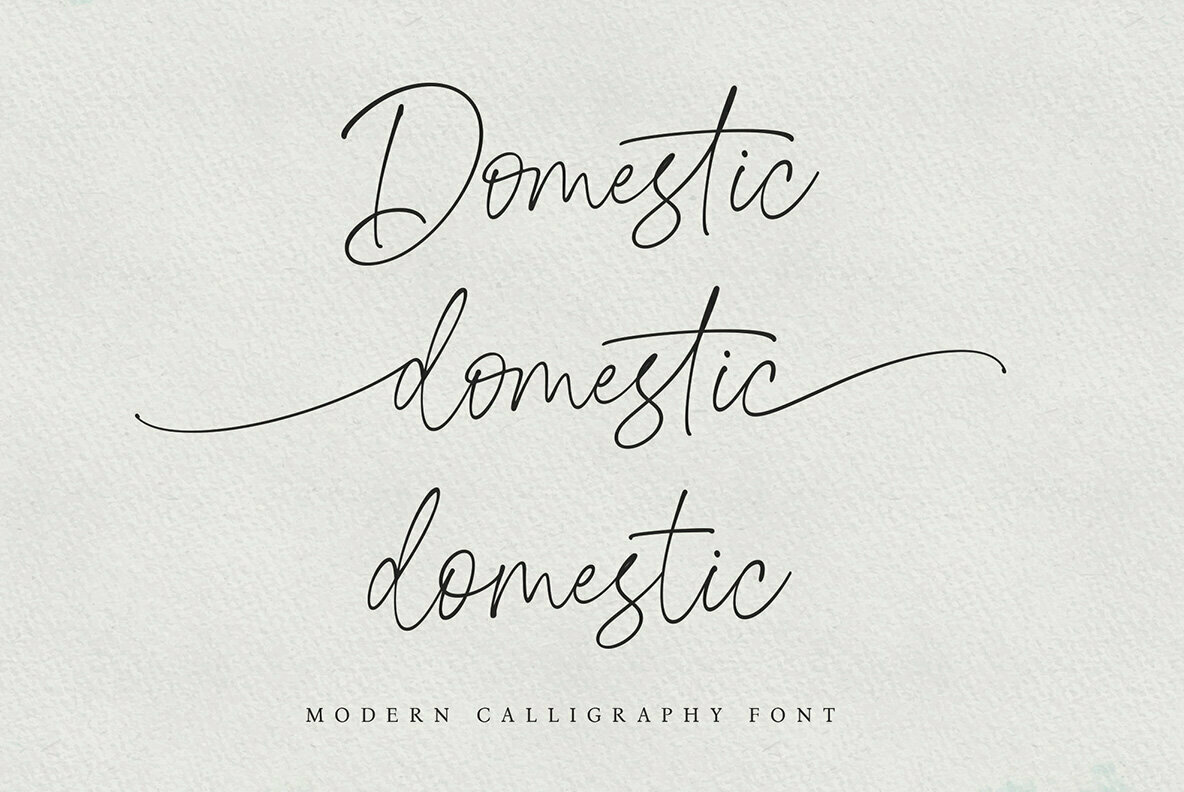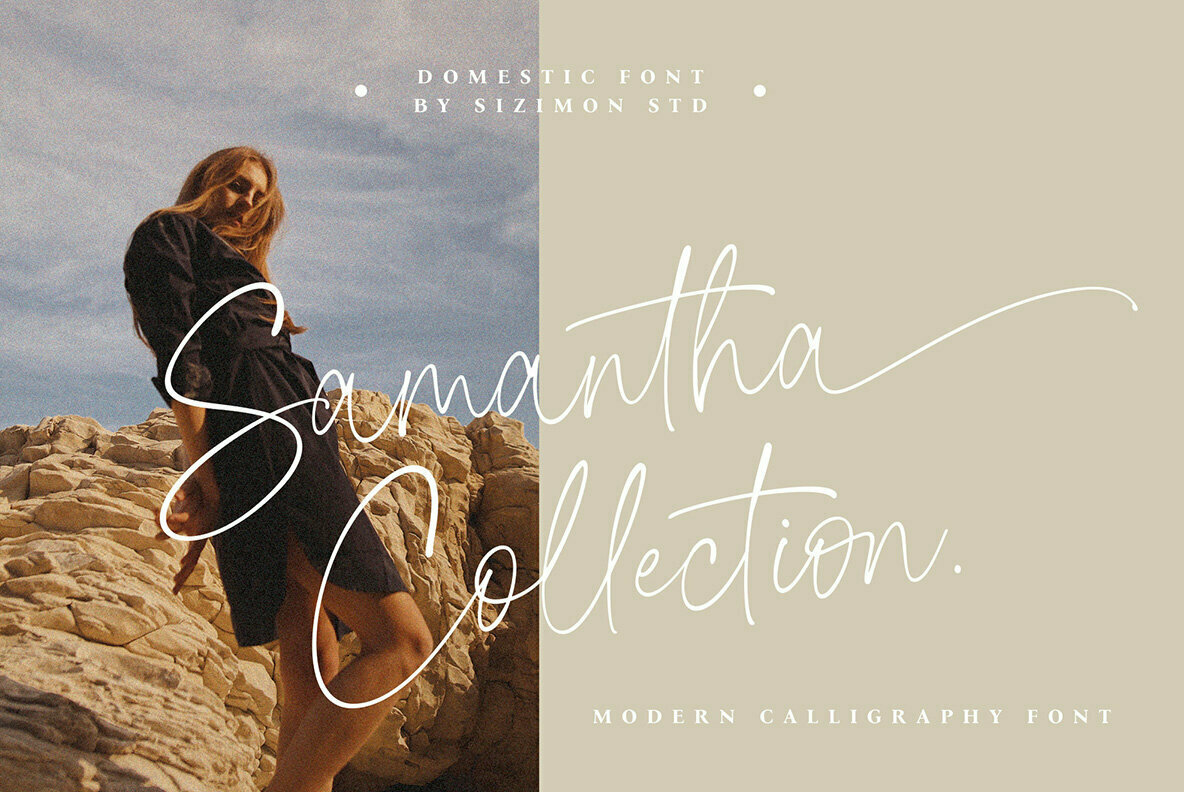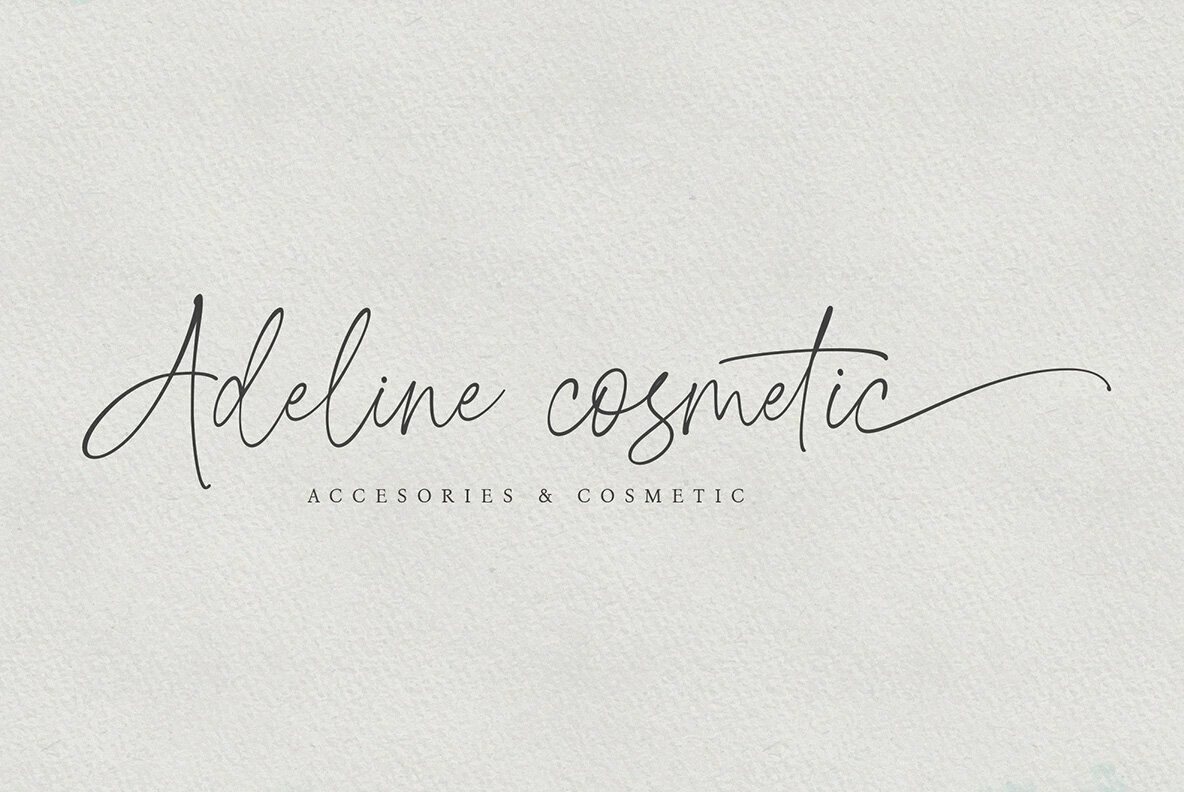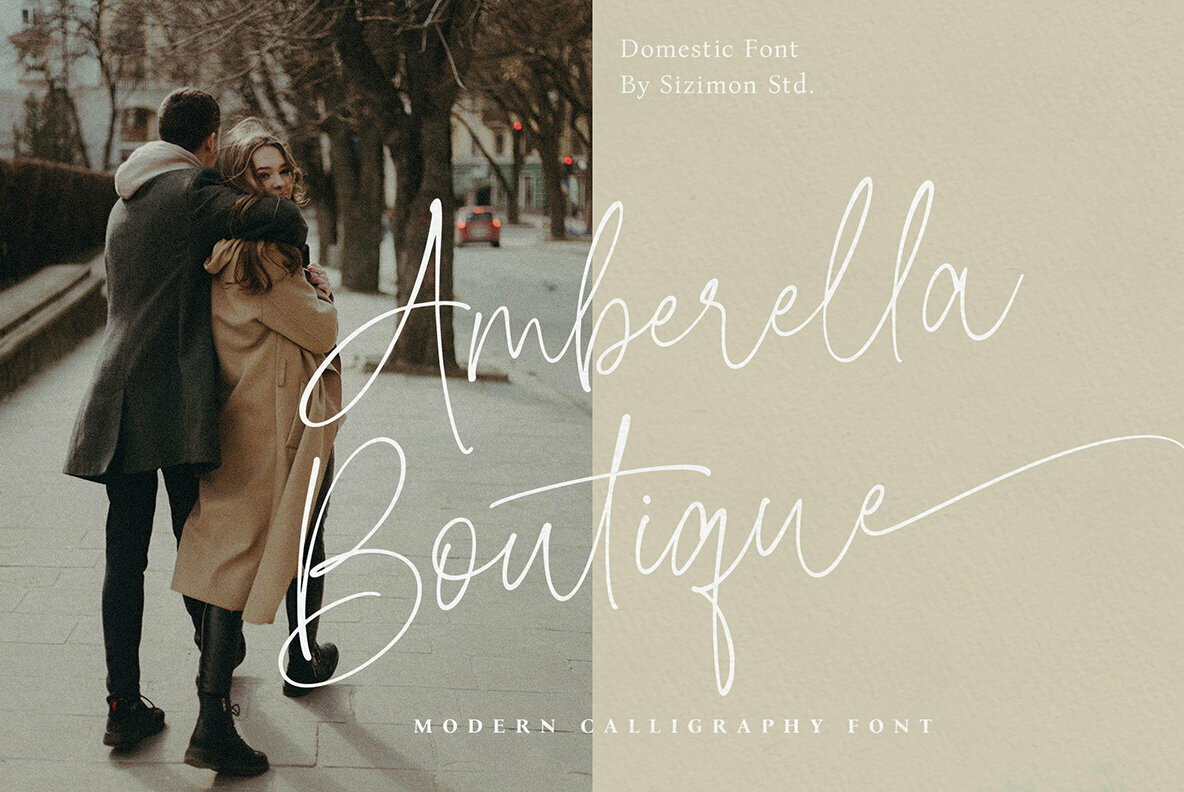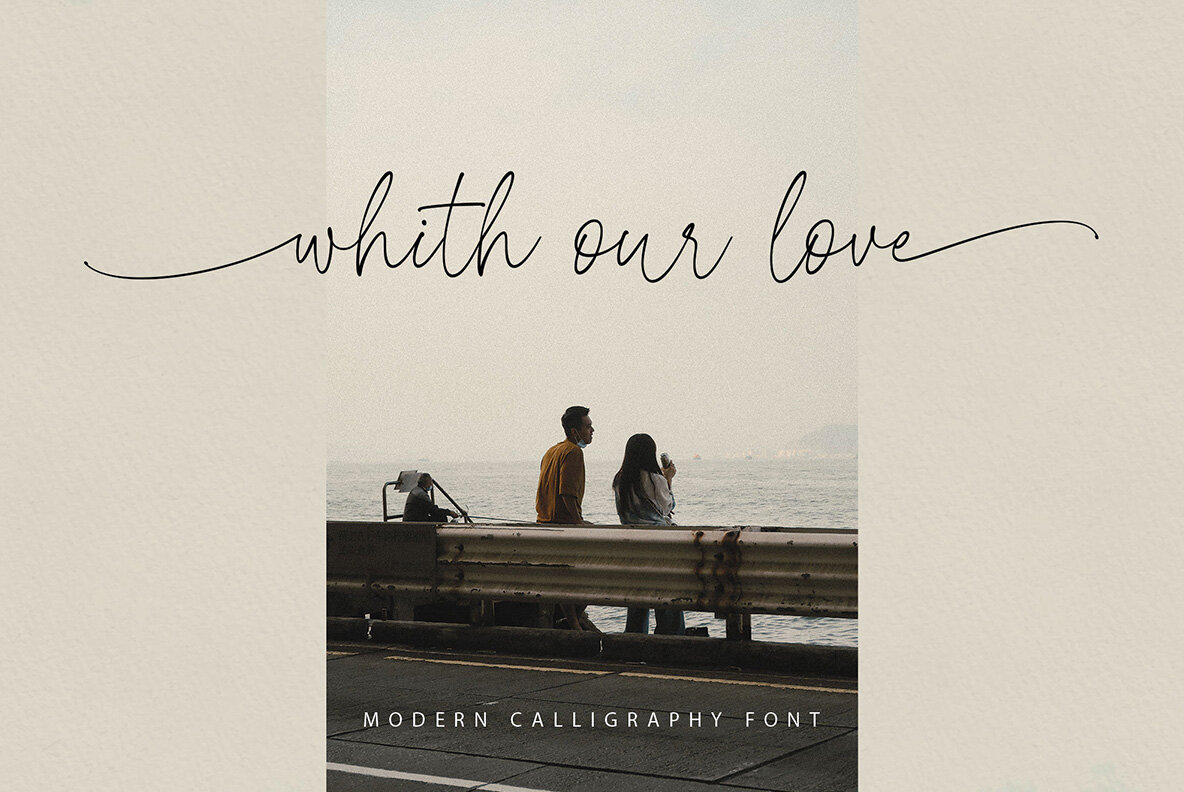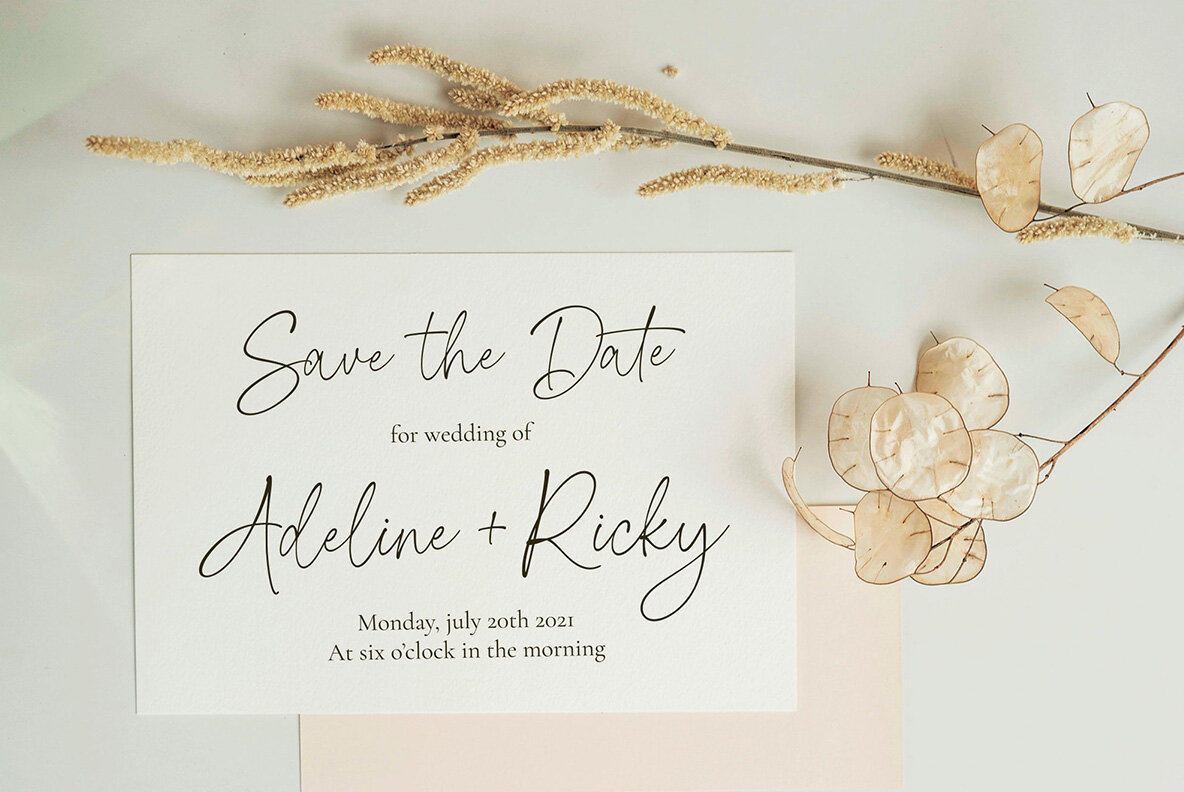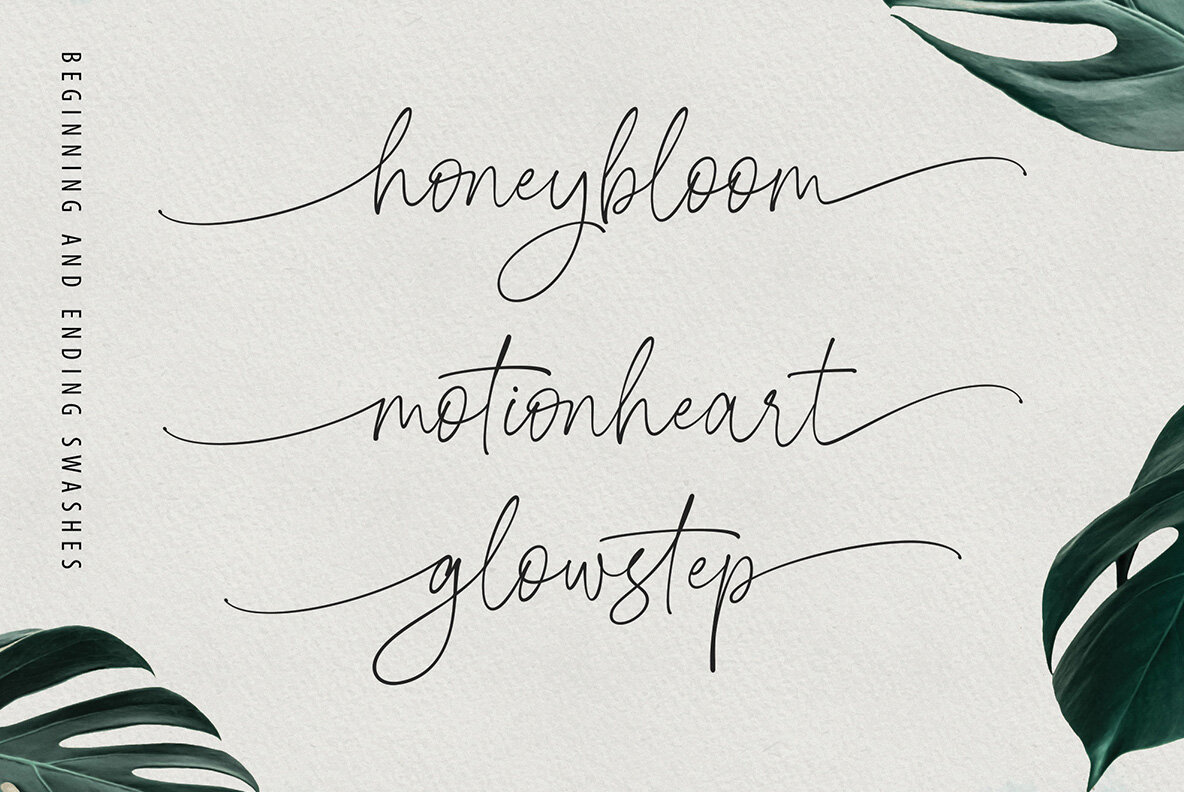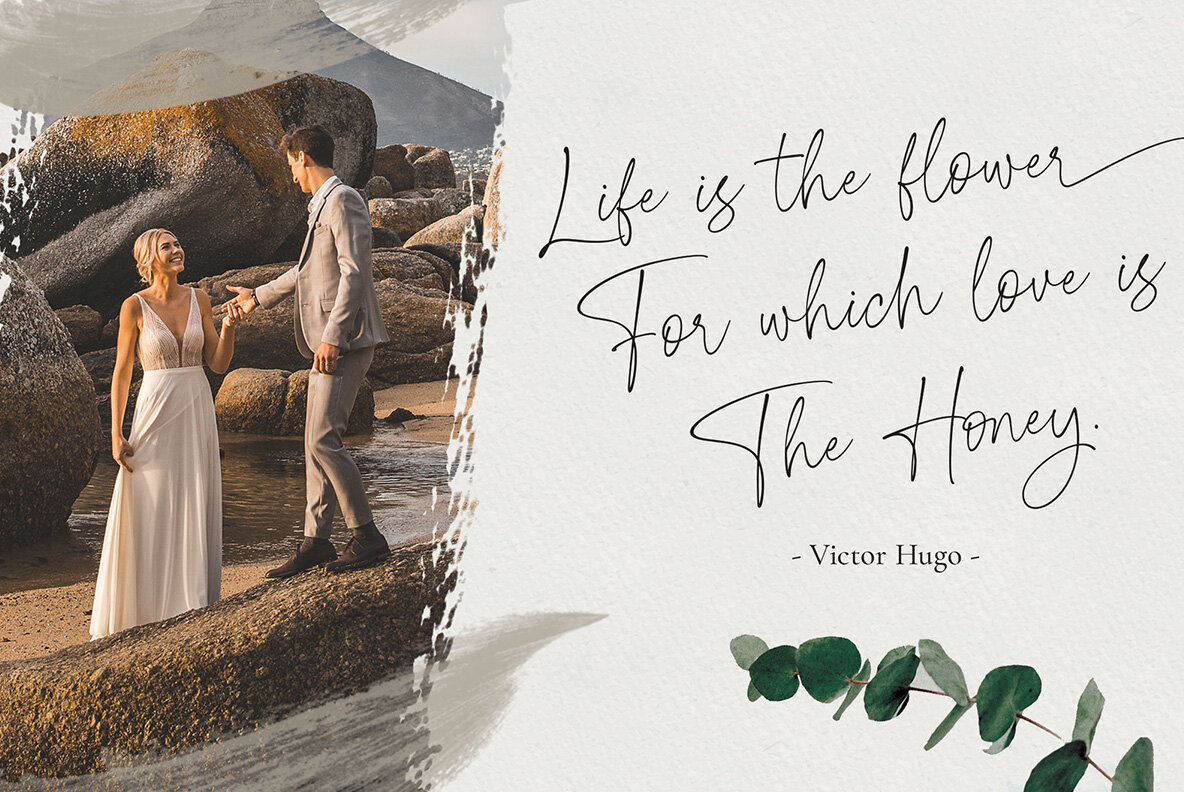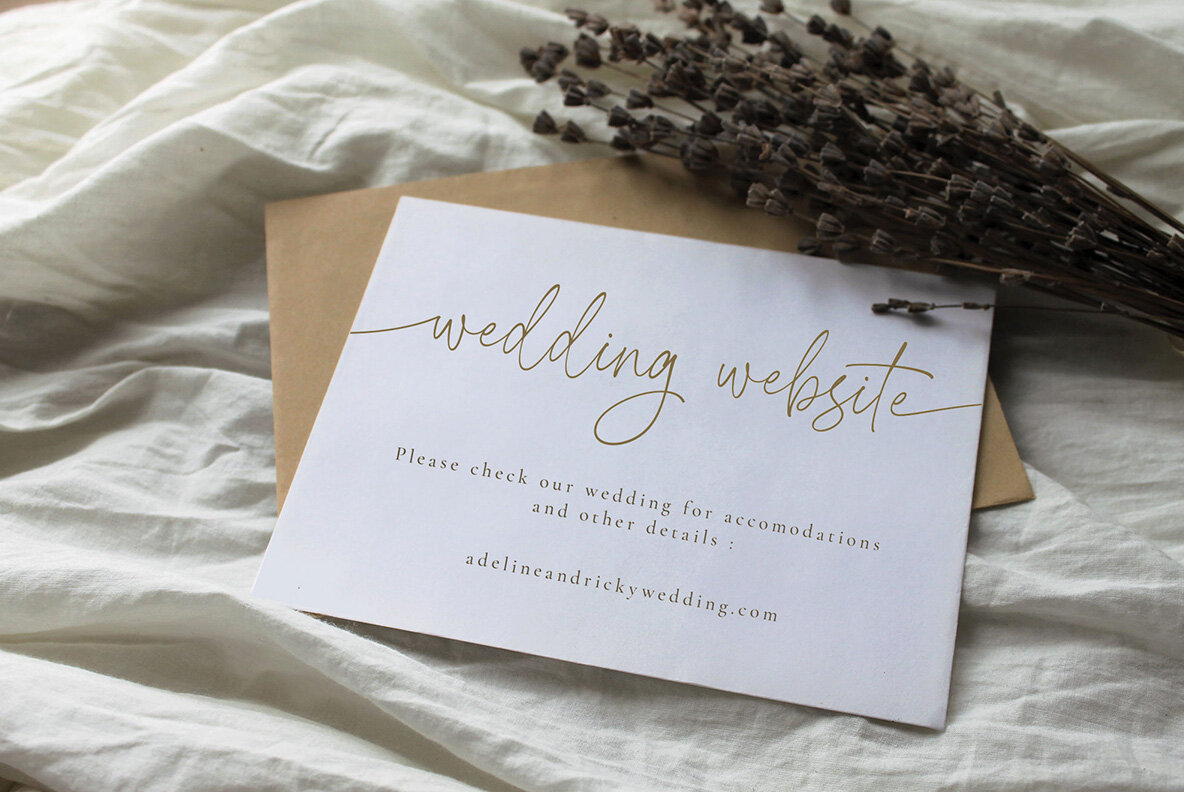
Domestic Script Font
Domestic Script
Domestic Script is a modern calligraphy font. This font is perfect for quotes, branding, ornaments, shirts, mugs, headings, blogs, logos, invitations and more!